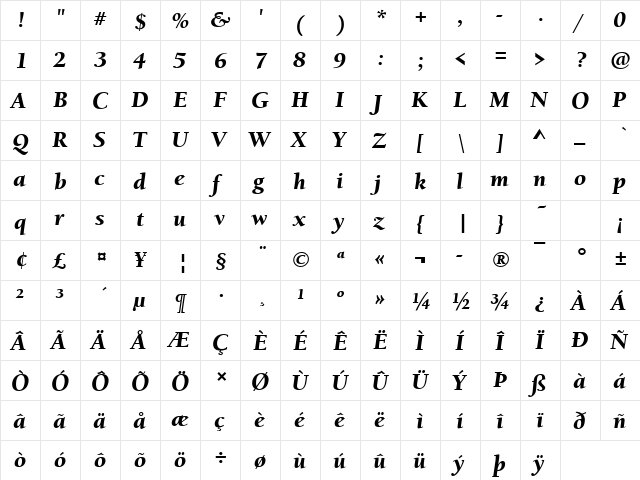
BerkeleyOldStyItcTBla Italic Font Preview
BerkeleyOldStyItcTBla Italic
BerkeleyOldStyItcTBla Italic Font Details
Design Context for BerkeleyOldStyItcTBla Typeface
BerkeleyOldStyItcTBla takes a measured approach to typography — its balanced proportions and neutral character make it a reliable workhorse for both digital and print work. Its italic angle brings a sense of urgency and motion to the letterforms.
Pro Tip: Use BerkeleyOldStyItcTBla for emphasis, pull quotes, and subheadings where its slanted energy can add rhythm to the layout.